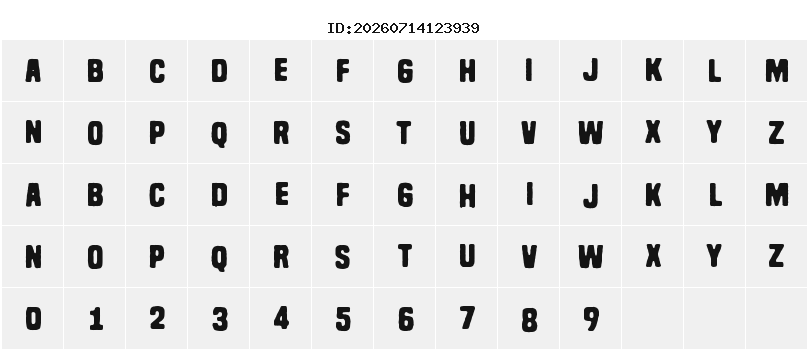
• Font Name: Have nothing to do with
• Full Font Name: Have nothing to do with
About Have nothing to do with.ttf
Have nothing to do with.ttf is a modern, elegant sans-serif font designed for ultimate readability and visual harmony. Perfect for branding, headlines, web design, and print materials.